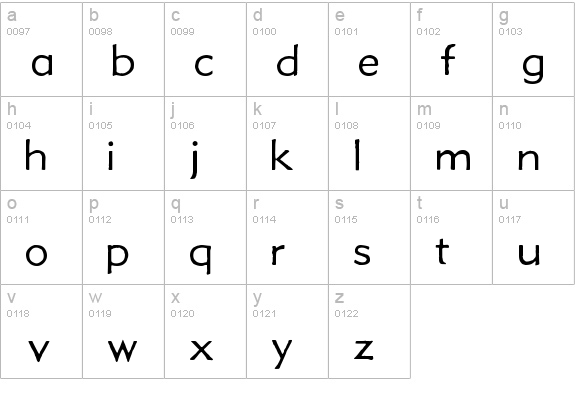
Metro Lite HPLHS font is a sleek and modern typeface that exudes sophistication and elegance. With its clean lines and geometric shapes, this font is perfect for creating a polished and professional look in any design project. The Metro Lite HPLHS font is ideal for use in branding, advertising, editorial design, and more. Best of all, this font is available for free download at FontsMarket.com. Simply visit the website and start using this stylish and versatile typeface in your projects today. Don't miss out on the opportunity to elevate your designs with Metro Lite HPLHS font - download it now for free!